Today we want to introduce you very masculine fonts to craft bold contents for your designs with a taste of spicy. In modern design, bold and big fonts are very important because the screens are bigger and for easy reading needs thick typography. So why not choose something so powerful from our collection below?
All these masculine bold fonts is crafted by professional designers and type people. The quality of them are very significant no matter it is free or premium font. Don’t create a fond from scratch and waste your precious time, take a look at the presented collection and decide on ready type, so you will save not only time and efforts, but also have the best quality font for your design project.
Billiyam / Masculine Font
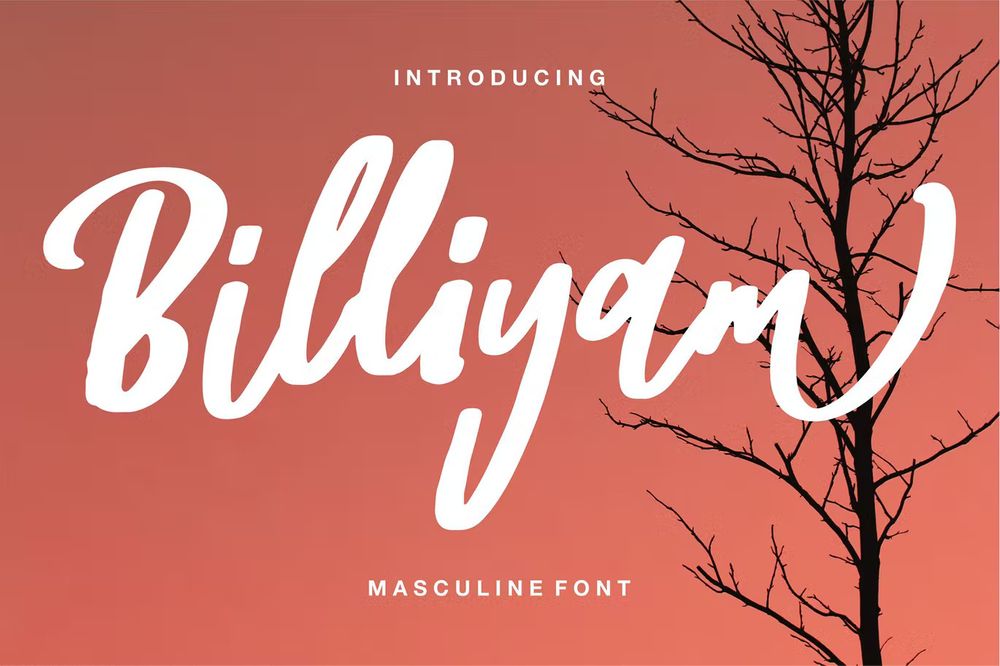
A masculine font with a calligraphy style, so beautiful on invitations like greeting cards, branding materials, business cards, quotes, posters and etc.
Rocky – Modern Masculine Font
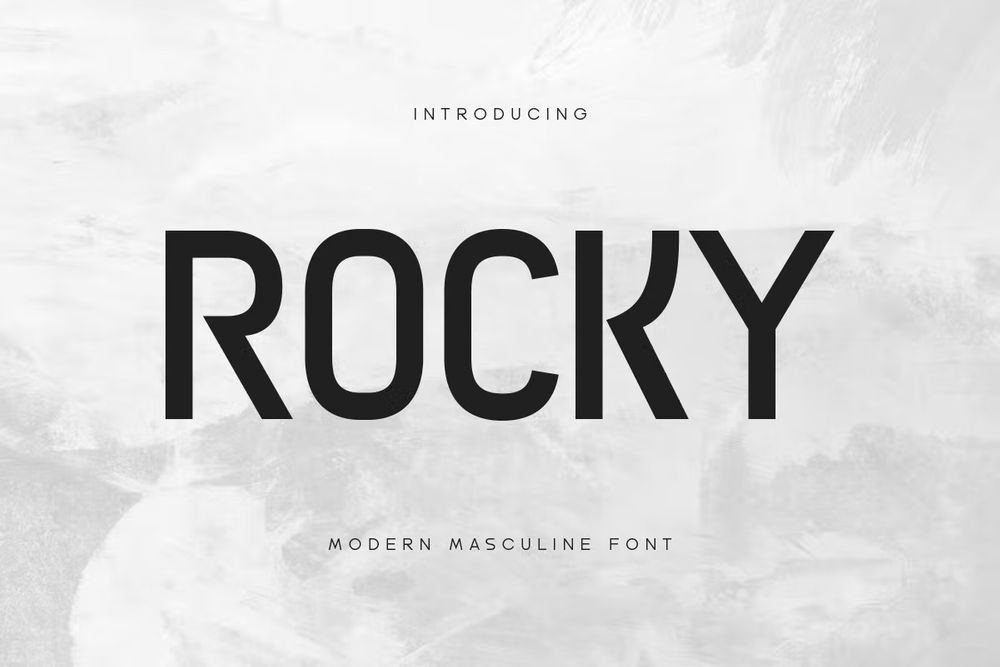
It is a modern masculine font that created special for branding, titles and more stand out typography needs, with extra alternative styles that make your design more memorable.
Extra Giant Pressed Font
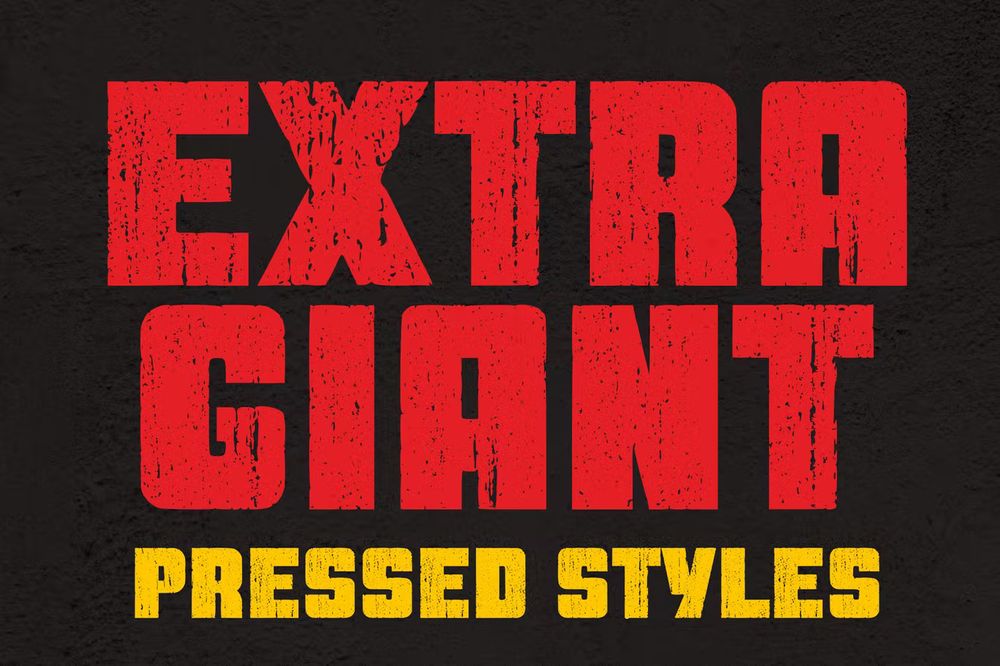
It is awesome and masculine font. Perfect for many projects like magazines, logos, branding, quotes, blog headers, posters, advertisements, postcards, books, websites and etc.
Saito – Vintage Garage Fonts
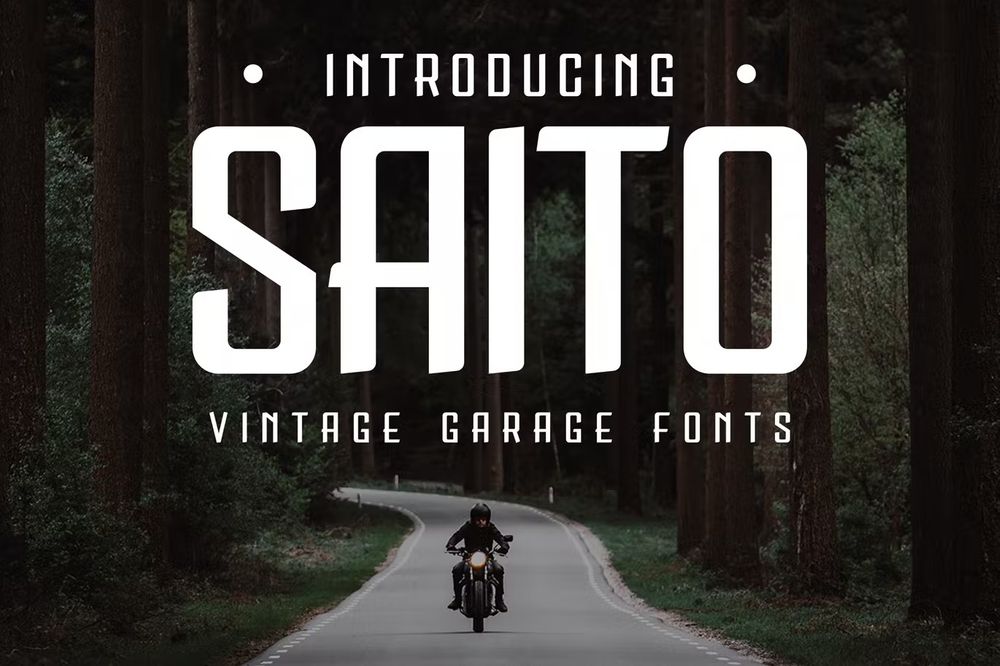
It is defined as a masculine font for your design needs. As easy as starting the engine for your vintage motorcycle branding tools, and of course other concepts that need a strong masculine touch.
When designing your perfect garage, then you’re going to want to a bold sign if you’re considering putting in signage. With this font, you’ll have no issues achieving your goals. You can put signs on your garage cabinets, walls or even on the garage door itself if you choose to.
Haned | Masculine Typeface
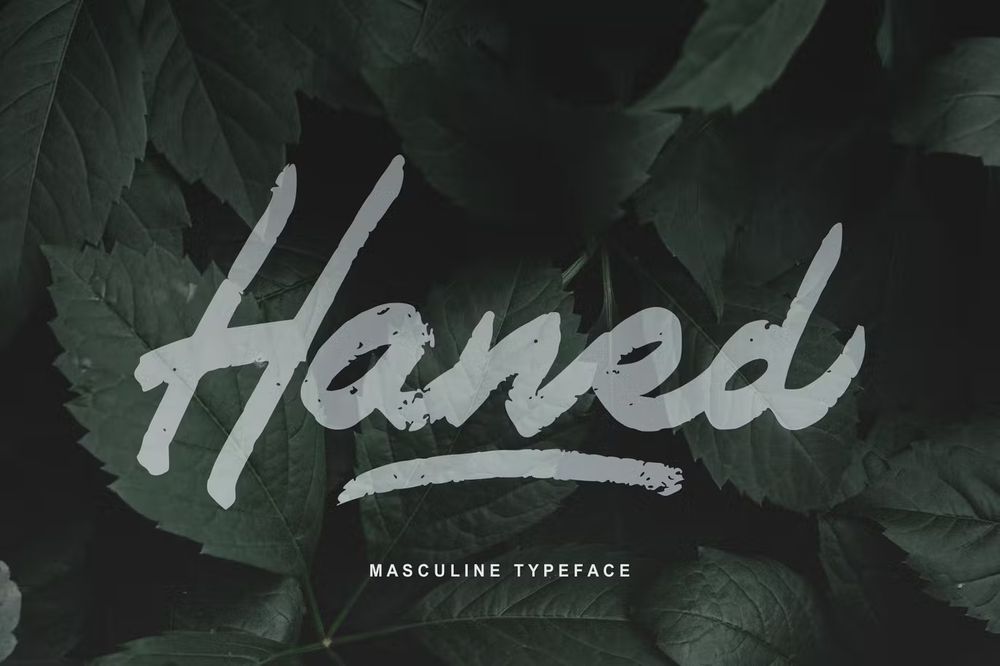
A masculine typeface with a calligraphy style, so beautiful on invitations like greeting cards, branding materials, business cards, quotes, posters and etc.
Revans Font Family
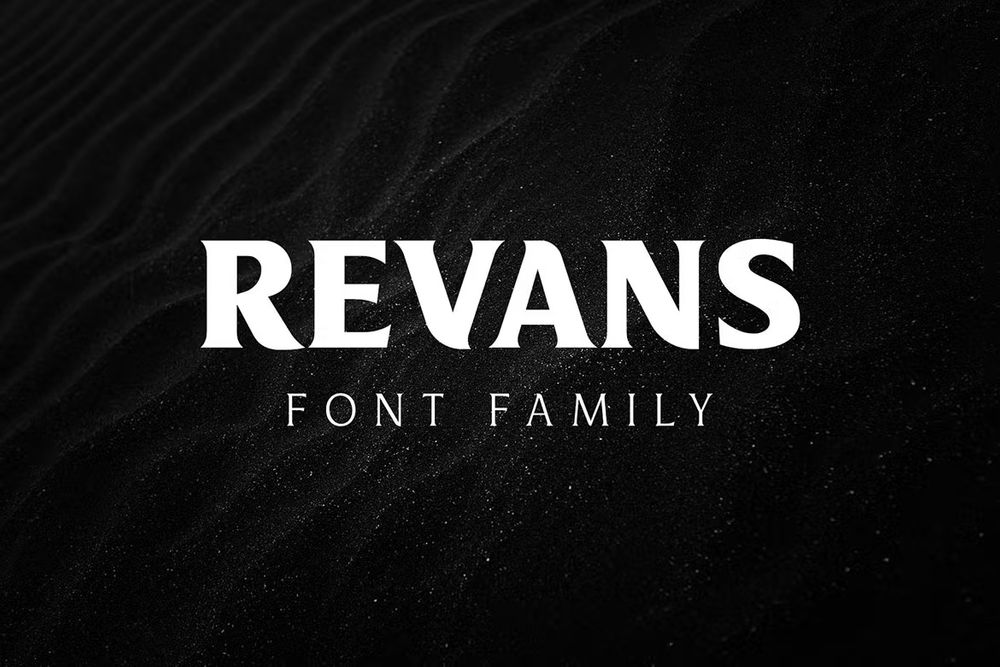
It is a strong serif font with medium contrast. Perfect for a headlines, magazines, books, fashion, quotes, hipster t-shirts, signboards, logos and etc.
Free Mathison Font
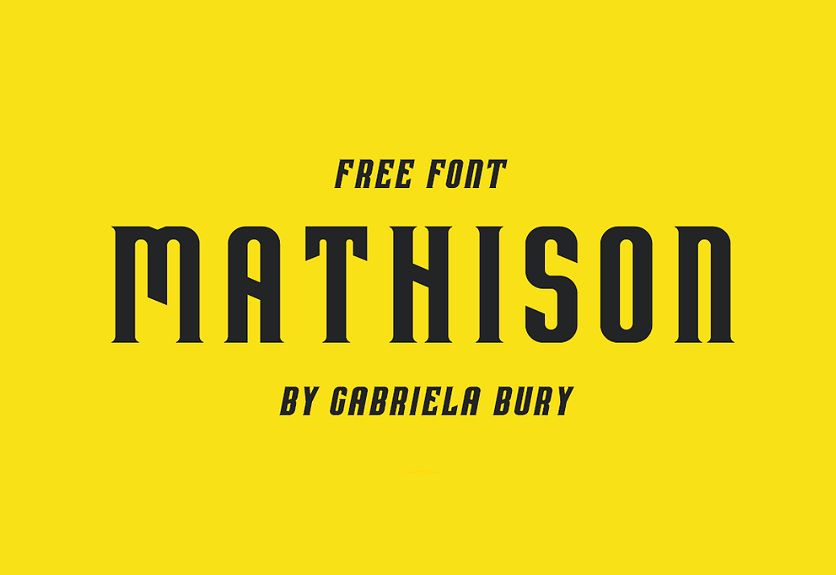
A font family includes 4 styles and has a great language support. Ideal for titles, headlines, covers, posters and etc.
Smoking Typeface + Illustration
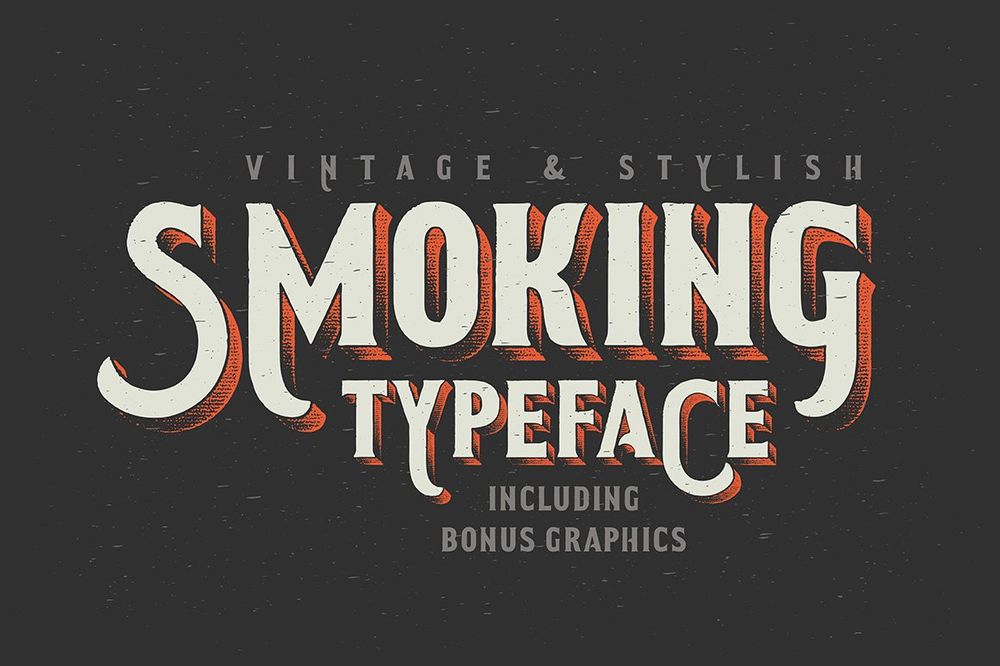
A vintage textured western font. Perfect for book covers, posters, apparel, titles and etc.
Free Overcame Font
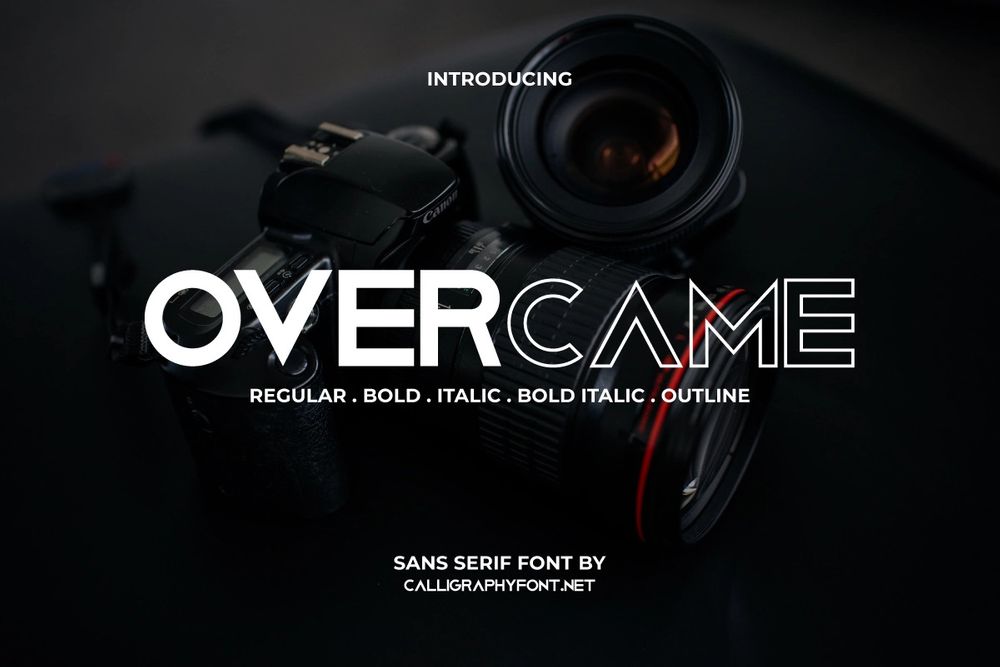
Free Groyline Font
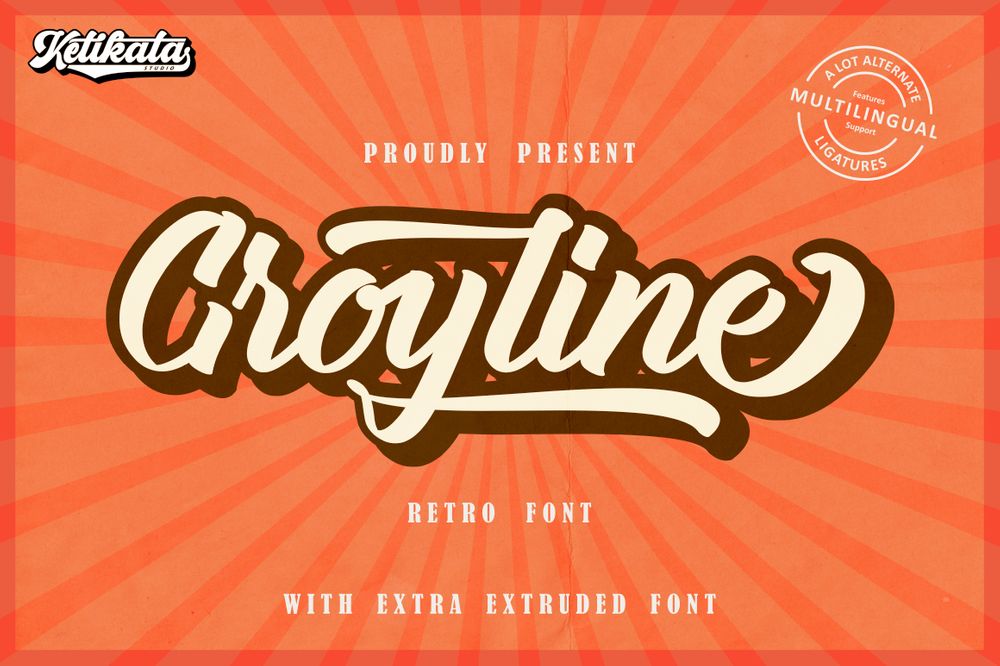
Ramestone – Handlettering Font
It is a bold script font was made it genderless or universal so it can be used for feminine or masculine purposes.
Workbar Serif Font
This font with its unique curves and cut-ins making it one of the most memorable caps fonts on the market. Ideal for logos and label designs, apparel designs, advertising, t-shirts, brochures and etc.
Piedemont Font
It is a gallant signature font. Inspired by men’s hand strokes. This font is designed for modern product branding, not only for men, but women also love this masculine side.
Campsite – Handbrush Font
The font is suitable to use for casual purpose. Try to craft it on wedding invitations, fashion, adventure, photography, branding and etc.
Sethidy – Handwritten Font
The handwriten script font. Great choice for logos, branding, crafting, t-shirt designs, printing projects, book covers, albums, quotes, cards and etc.
Northden Typeface
It is industrial typeface font with a masculine style that is suitable for your design needs that need a classic, vintage touch. Perfect for logos, product labels, posters or other cool design.
Huvet Typeface
It is a striking display font. The masculine style makes it perfect for logos, typography, and product labels that require a classic vintage touch.
Barber – Vintage Serif Font
A masculine vintage display font with a modern flair. Perfect for logos and designers but really works well for all purposes.
American Mortar – Vintage Font Family
A masculine vintage display font with a modern flair. This nostalgic font is super fun to work with and is perfect for logos, badges, but really works well for all purposes.
Alvaro Condensed Duo
It is a clean condensed style font, design as part of a growing font family for a personal project that needed a simpler look. Perfect for headlines, titles, book covers, vintage designs, brochures, posters and etc.
A clean script and unique character. Perfect for logos, name cards, magazine layouts, invitations, headers, or even large-scale artwork.
The Hustle Font
It’s a new industrial style sans serif font perfect for logo creation, advertisements, apparel and etc.